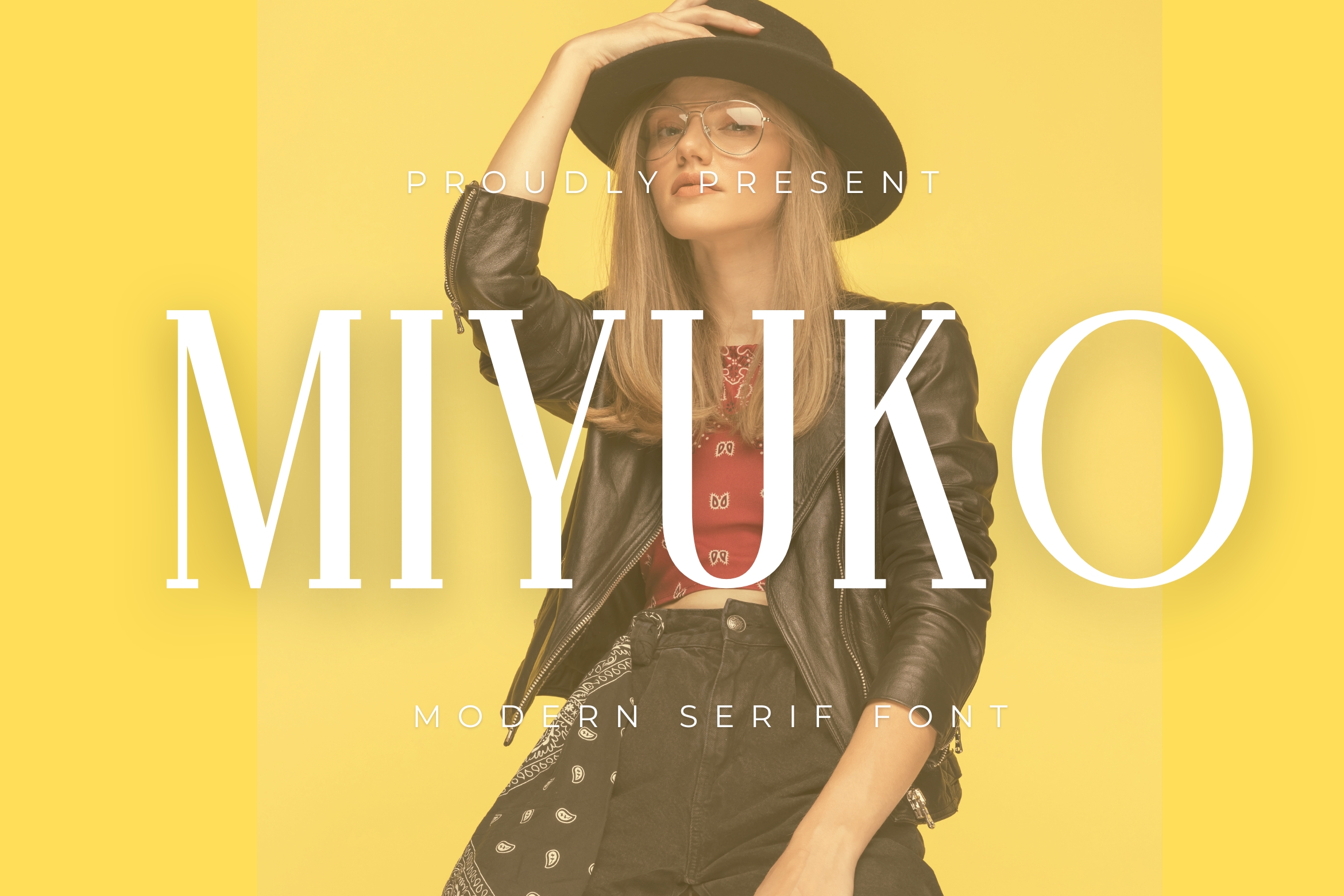
Introducing Miyuko – Modern Serif Font. Miyuko is a modern and simple font, best used as a display for headings, logos, branding, magazines, product packaging and invitations.
Miyuko | Modern Serif Font